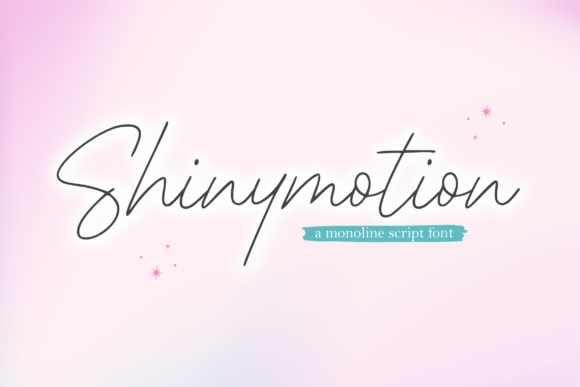
Immerse yourself in the world of Shinymotion, a captivating script font family that exudes charm and sophistication. Designed by the talented allouse.studio, Shinymotion is a visual masterpiece that will elevate your creative projects to new heights. Its elegant curves and playful characters dance harmoniously, creating a captivating visual experience that is sure to leave a lasting impression.
With Shinymotion, you have the power to transform your words into stunning works of art. Its versatility knows no bounds, making it the perfect choice for an array of design projects. Craft eye-catching product packaging that leaps off the shelves, or design branding projects that speak volumes about your brand's personality. Adorn magazine covers with an air of sophistication, or make your social media posts pop with vibrancy. Whether it's a heartfelt wedding invitation or a simple expression of love, Shinymotion adds a touch of magic to every word it graces.
Unleash your creativity and let Shinymotion take center stage. This font is a visual symphony, commanding attention and inspiring awe. Its striking presence is sure to captivate your audience, leaving them mesmerized by your design genius. With Shinymotion, you'll create designs that resonate with your audience, leaving an indelible mark on their hearts and minds.